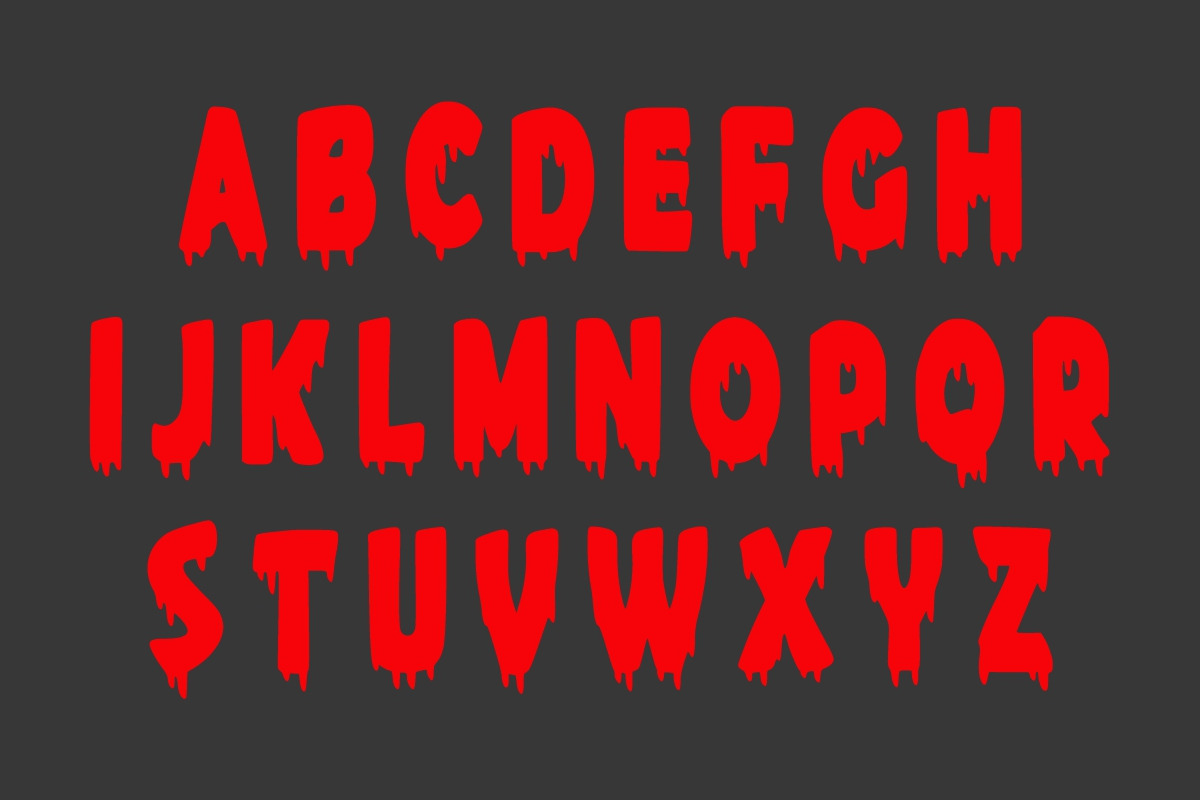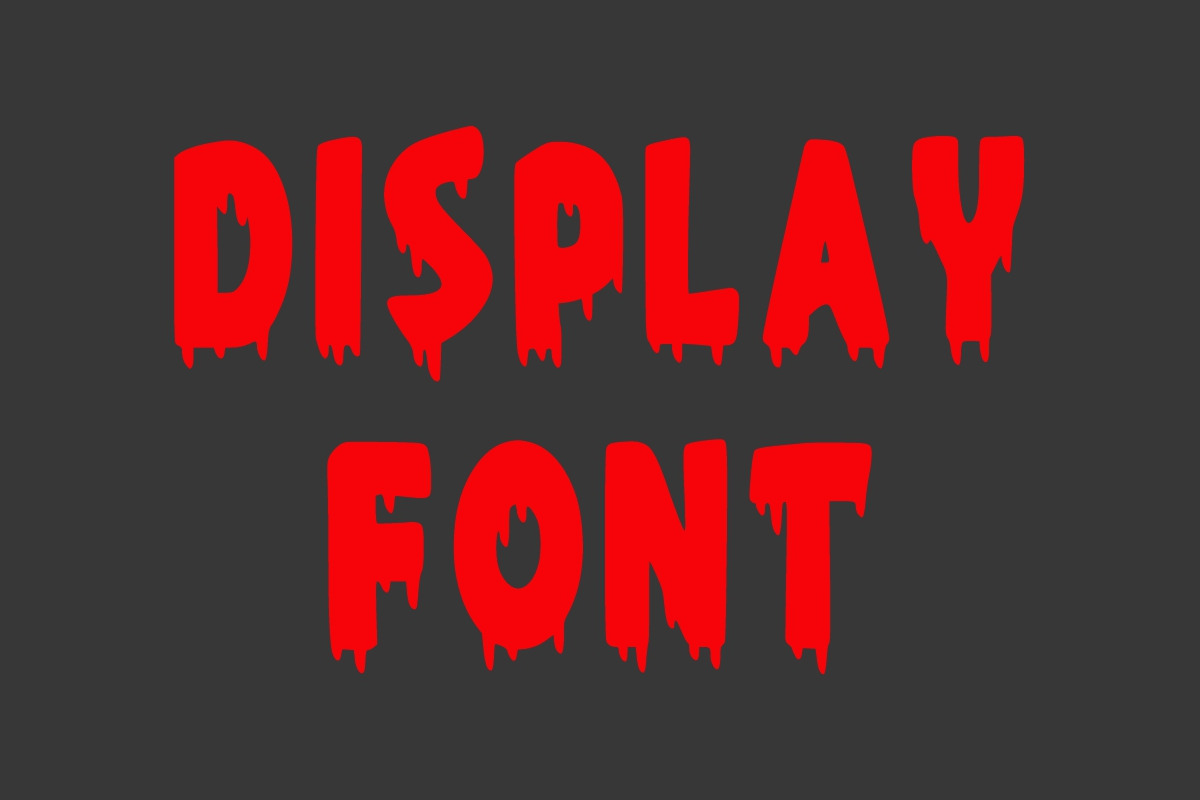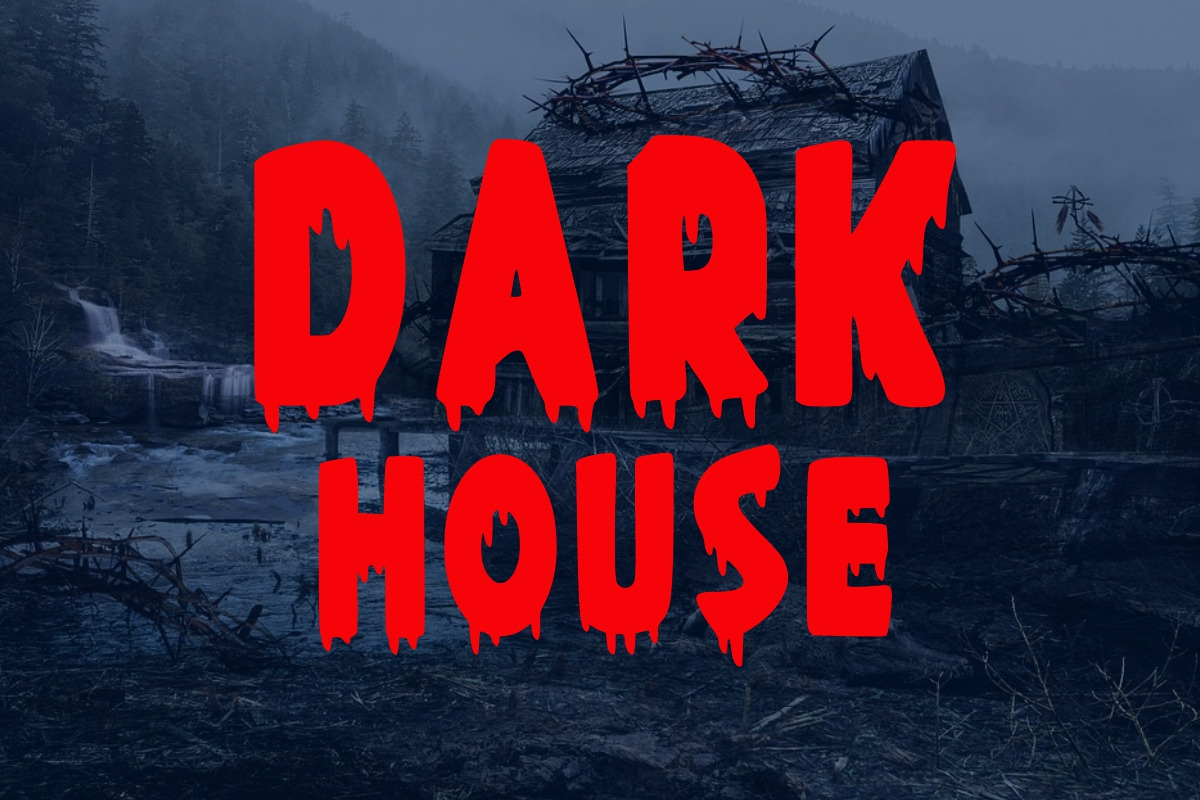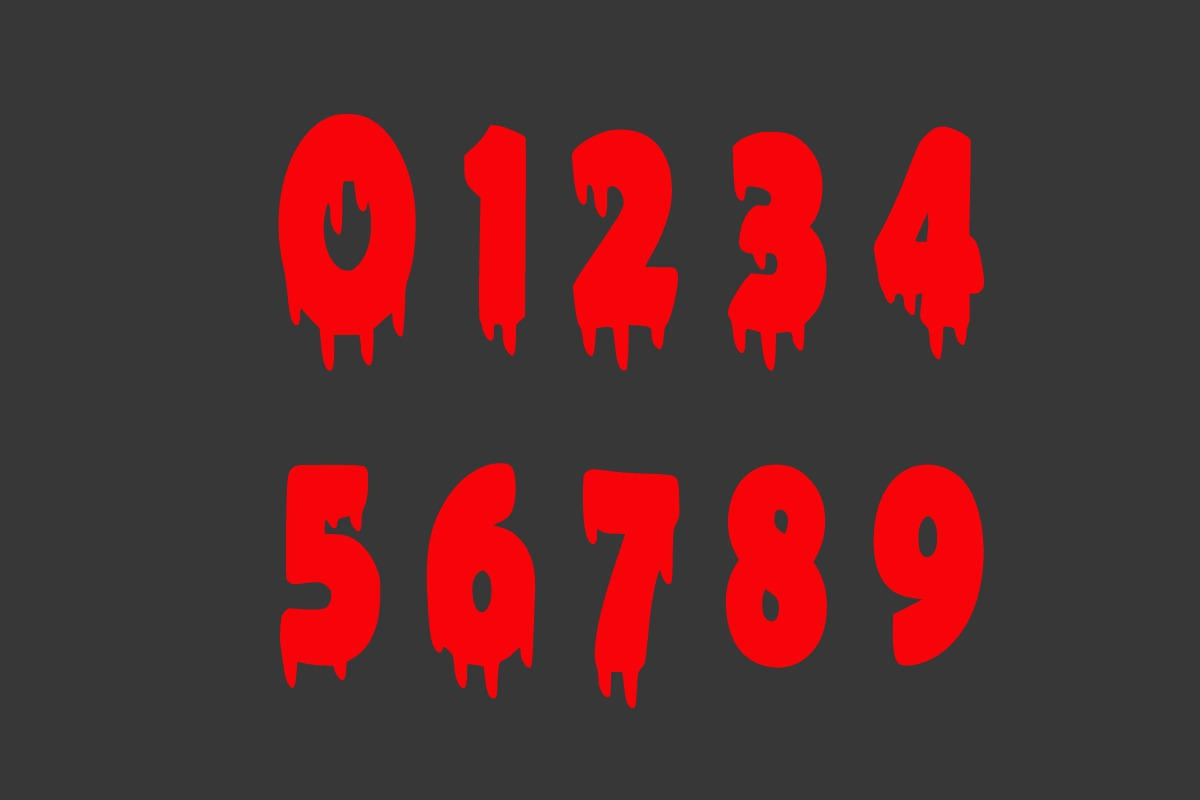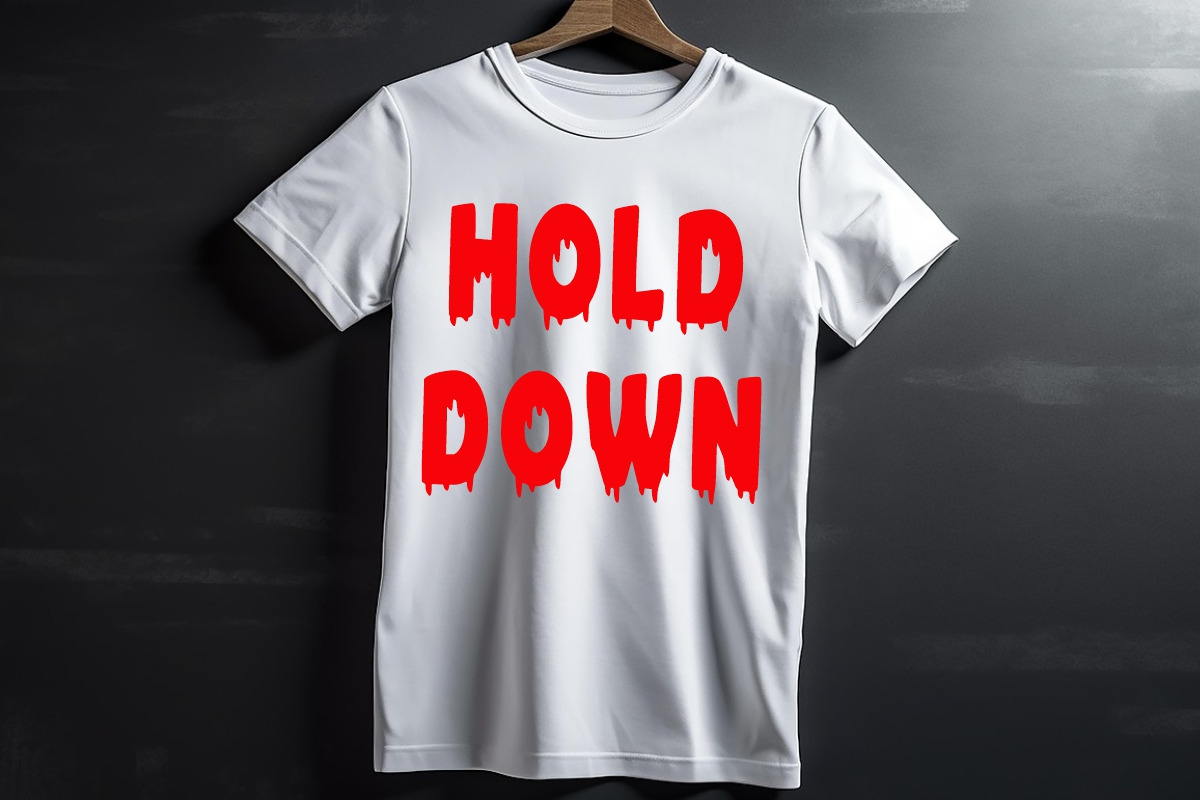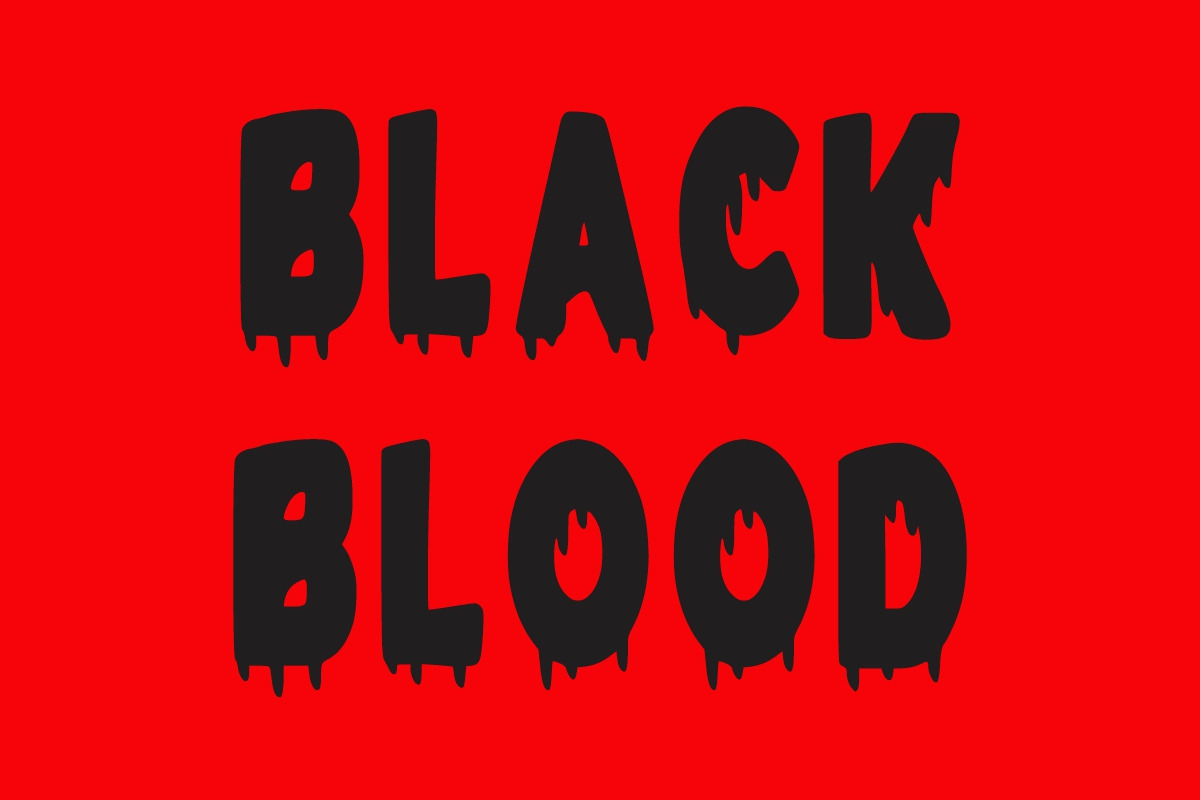
Monster Halloween
Monster Halloween is a bold and spine-chilling Halloween display font designed to bring a terrifyingly fun edge to your creative projects. With its horror-inspired style and eerie shapes, this font instantly sets the mood for spooky, scary, and thrilling themes. Perfect for more than just Halloween night, it works beautifully across a wide range of projects — from logos, branding, and advertising to blog posts, posters, and social media graphics. It’s also an excellent choice for invitations, greeting cards, planners, photo albums, and party decorations, giving your designs that extra haunting touch. Whether you’re crafting a creepy headline, designing horror-themed merchandise, or setting the stage for a haunted event, Monster Halloween ensures your text won’t go unnoticed. This font combines fear and fun, making it the ultimate choice for anyone wanting to capture the spirit of Halloween and beyond.